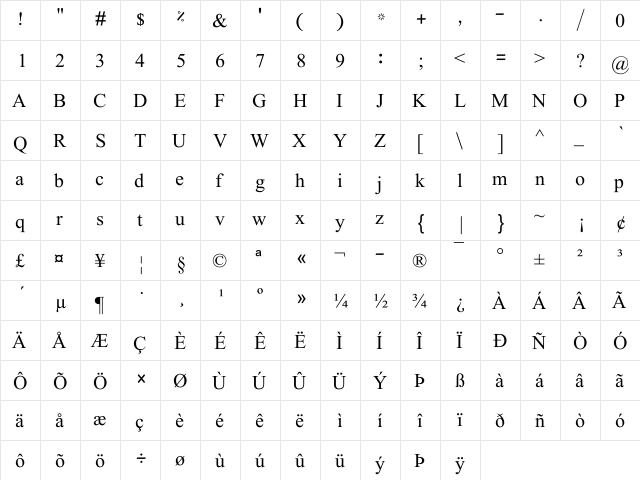
Jameel Noori Nastaleeq Regular
Design Context for Jameel Noori Nastaleeq Typeface
Jameel Noori Nastaleeq takes a measured approach to typography — its balanced proportions and neutral character make it a reliable workhorse for both digital and print work.
Pro Tip: Use Jameel Noori Nastaleeq in both headline and body roles to test its range before committing to a single application.